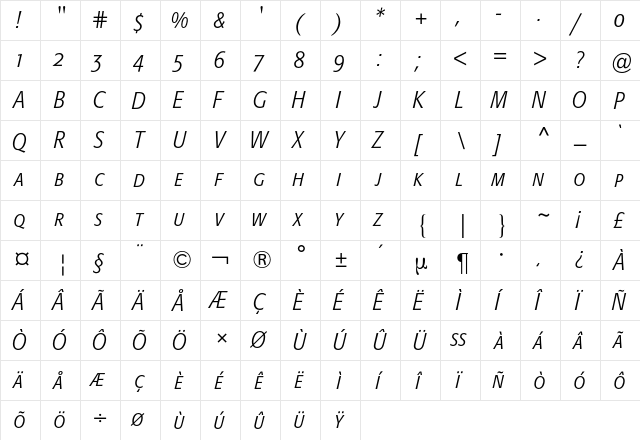
FormataCondensedExpertBQ Regular
Design Context for FormataCondensedExpertBQ Typeface
FormataCondensedExpertBQ takes a measured approach to typography — its balanced proportions and neutral character make it a reliable workhorse for both digital and print work. Its narrow stance lets it pack a punch even in space-constrained designs.